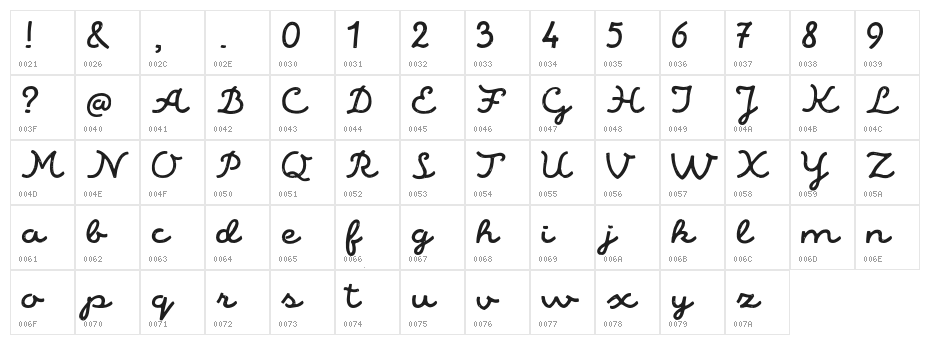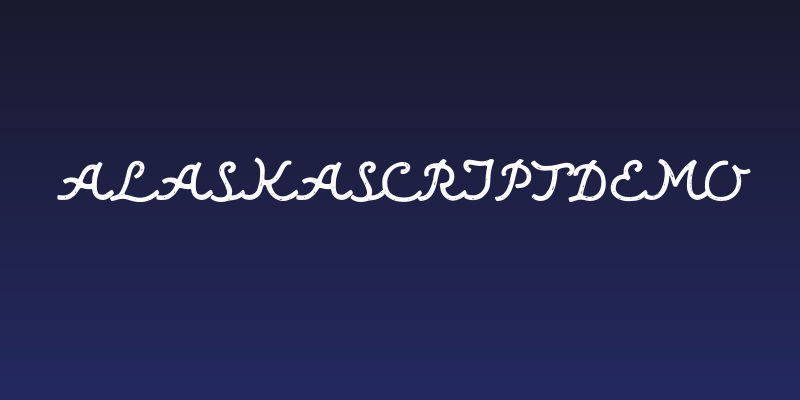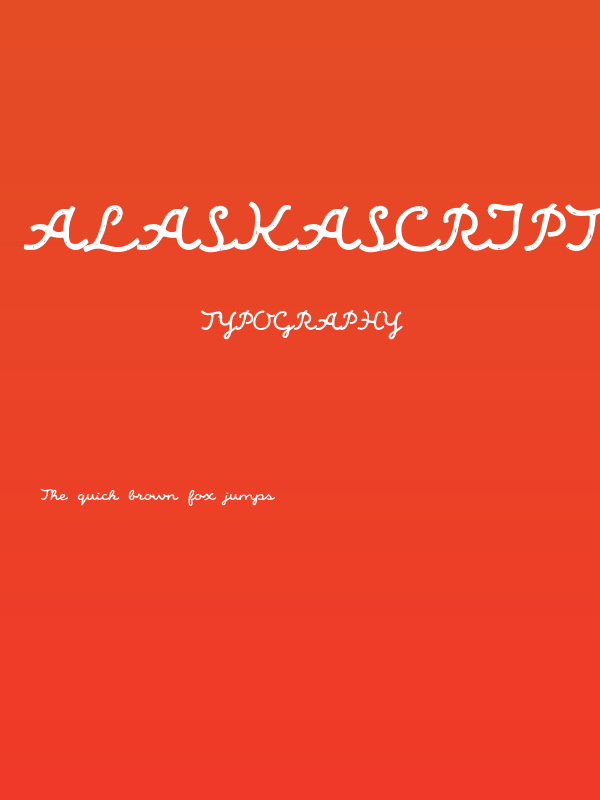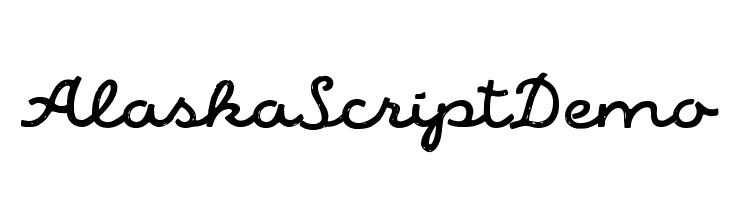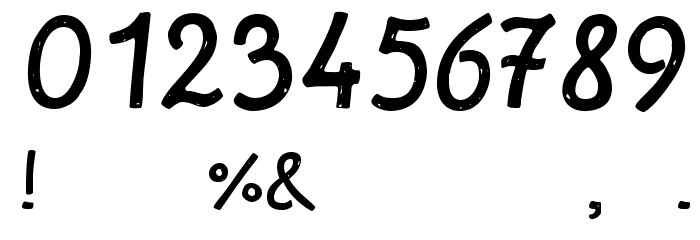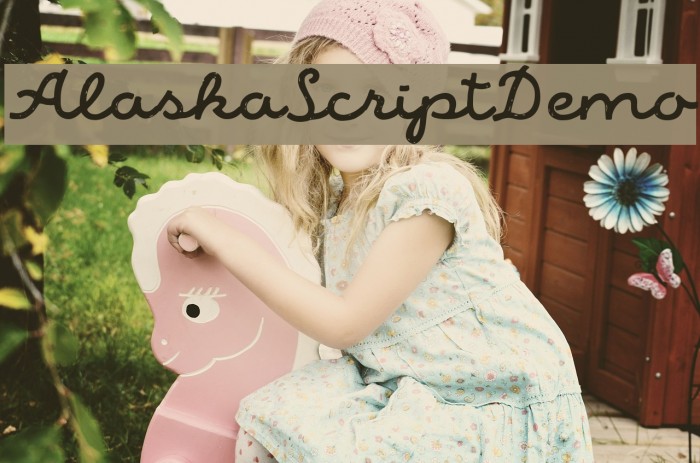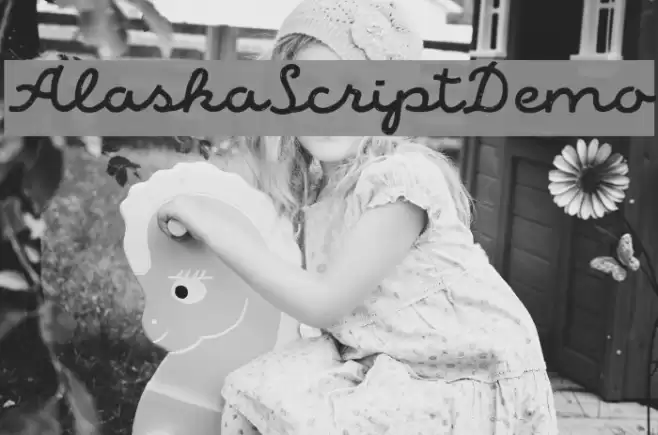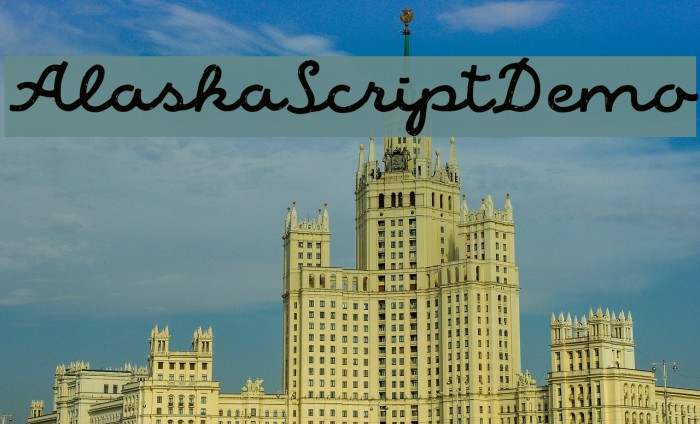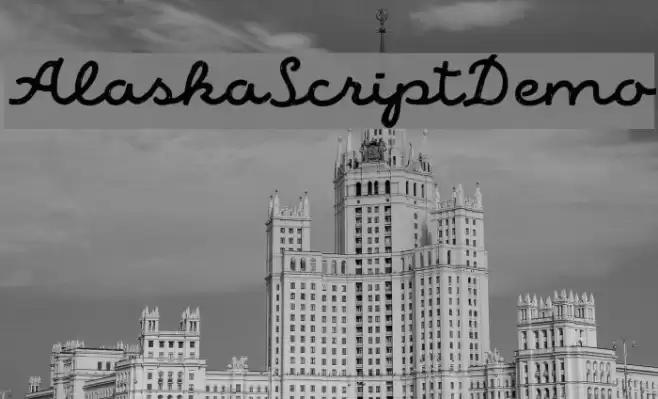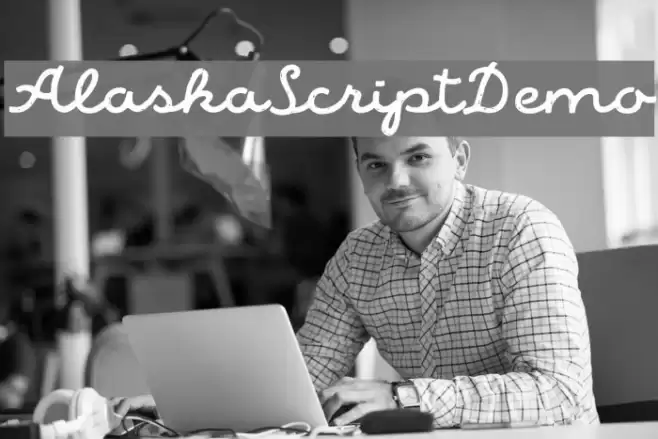
AlaskaScriptDemo Font
AlaskaScriptDemo Description
This font features a playful and flowing script style with a handwritten appearance. The uppercase letters have a distinct, looping design that adds a whimsical touch, while the lowercase letters maintain a consistent flow, enhancing readability. The numerals are bold and rounded, complementing the overall style. Special characters are integrated seamlessly, maintaining the font's cohesive look. The strokes are moderately thick, providing a medium contrast that balances elegance with legibility. This font is suitable for creative projects where a personal and friendly tone is desired.
| Overall Style | Playful, Handwritten |
| Use Case | Logos, Invitations, Greeting Cards |
| Proposed Projects | Ideal for greeting cards, invitations, personal branding, and creative logos. |